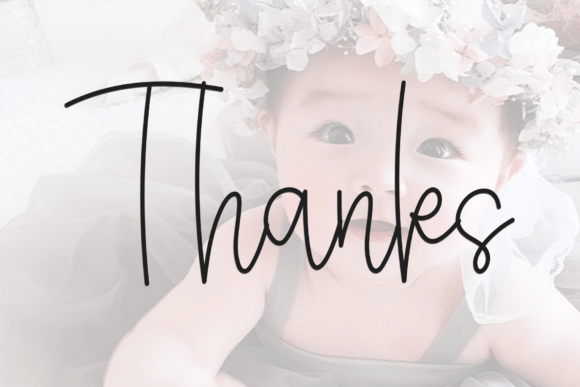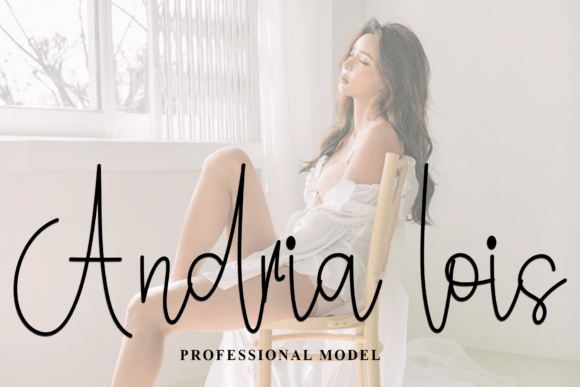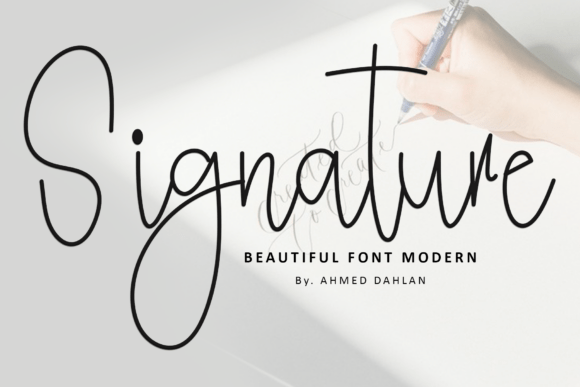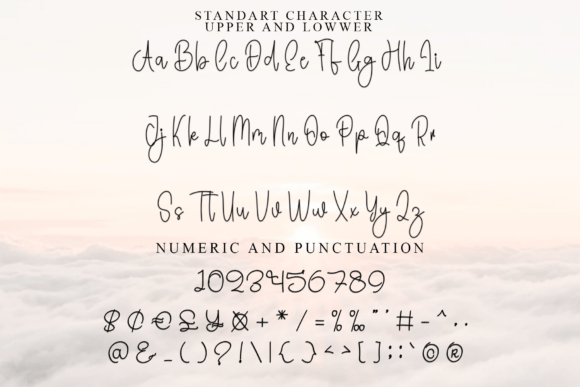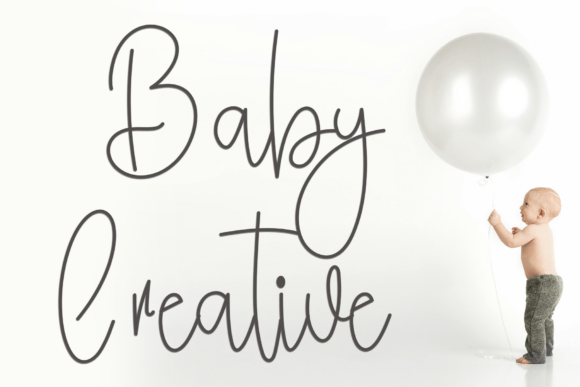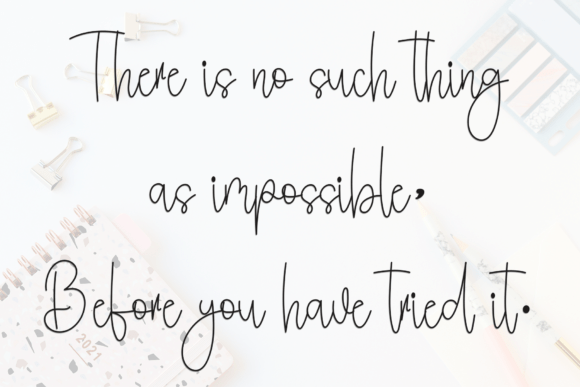
Baby Birthday Font: A Sweet Addition to Your Design Projects
Are you looking for a font that adds a touch of softness and uniqueness to your design projects? Look no further than the Baby Birthday font! This beautiful and eye-catching font is designed to bring a special character to your creations, making it perfect for a wide range of artistic and creative endeavors.
What Makes Baby Birthday Font Special?
The Baby Birthday font boasts distinctive strokes that give it a one-of-a-kind charm. Its soft and unique touch makes it an excellent choice for designers and crafters who want to add a personal touch to their work. Whether you’re creating invitations, greeting cards, or other design projects, this font is sure to make your creations stand out.
One of the best things about the Baby Birthday font is its versatility. With a wide range of characters, you can use it for various design projects, from crafts to creative works. The font’s natural style makes it perfect for creating products that appeal to a broad audience, including:
- Stationery and gift tags
- Crafts and DIY projects
So, what are the benefits of using the Baby Birthday font for designers and crafters? Here are just a few:
- Unique and eye-catching designs: The Baby Birthday font helps you create designs that stand out from the crowd, making your work more engaging and memorable.
- Increased creativity: The Baby Birthday font’s unique style and versatility inspire creativity, helping you explore new ideas and concepts for your designs.
Tips for Using Baby Birthday Font
To get the most out of the Baby Birthday font, here are some tips to keep in mind:
- Experiment with different sizes and colors: Play around with different font sizes and colors to find the perfect combination for your design.
- Pair it with other fonts: Combine the Baby Birthday font with other fonts to create a unique and visually appealing design.
- Use it for headlines and titles: The Baby Birthday font is perfect for headlines and titles, adding a touch of personality and whimsy to your designs.
In conclusion, the Baby Birthday font is a beautiful and versatile addition to any design project. Its unique and eye-catching style, combined with its compatibility and ease of use, make it perfect for designers and crafters alike. Whether you’re creating invitations, greeting cards, or other design projects, this font is sure to bring a touch of softness and personality to your work. So why not give it a try and see the difference it can make in your designs?